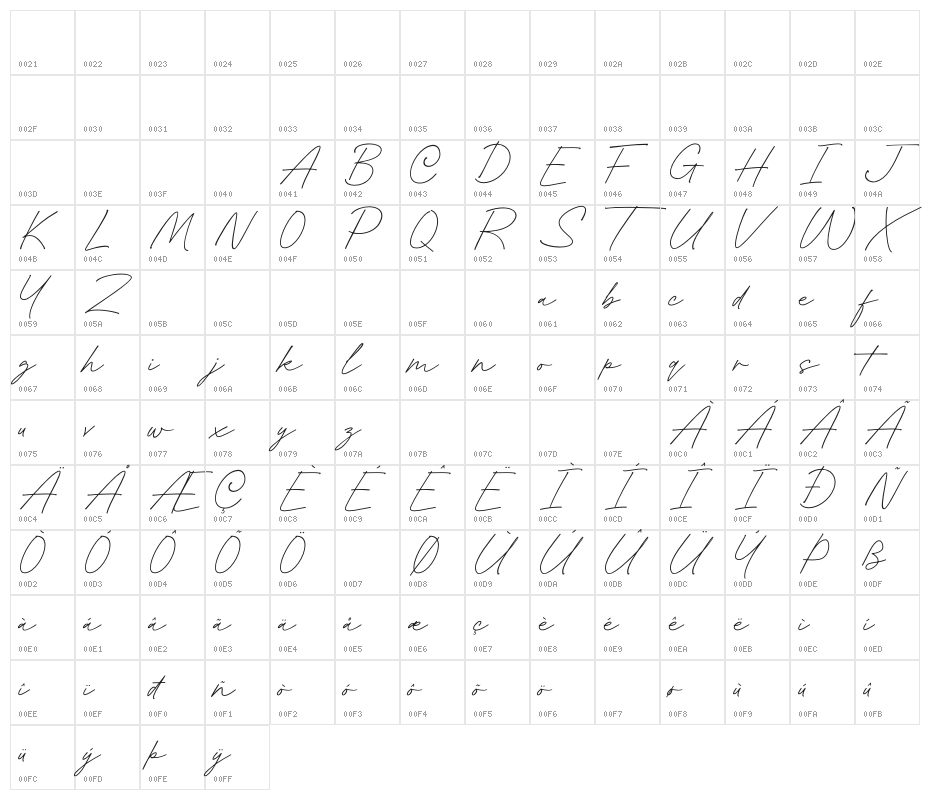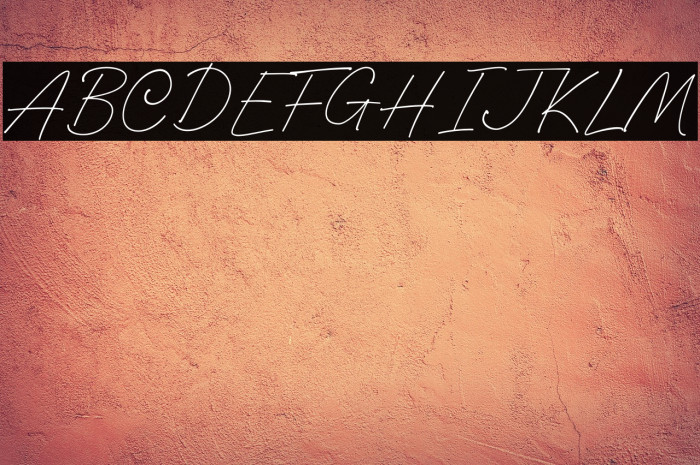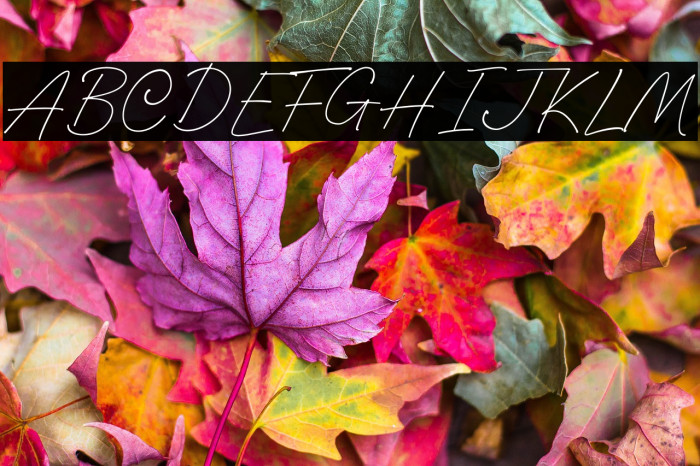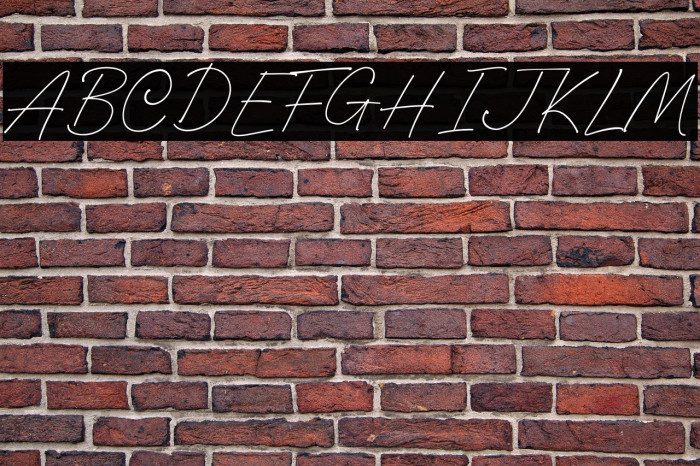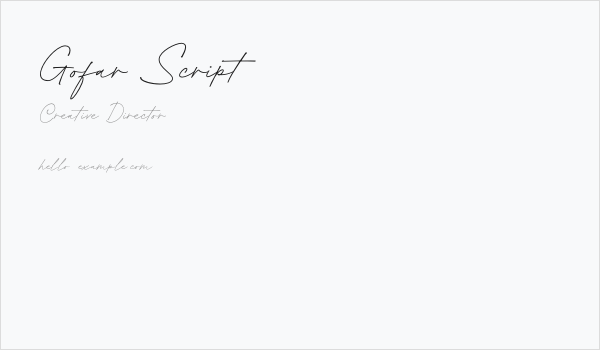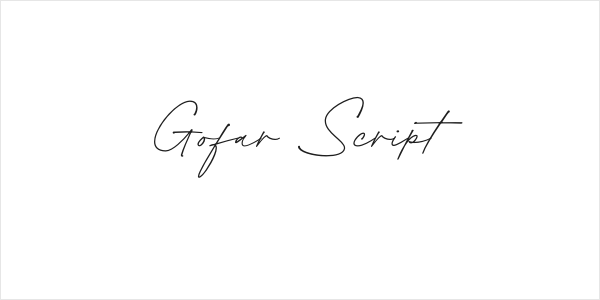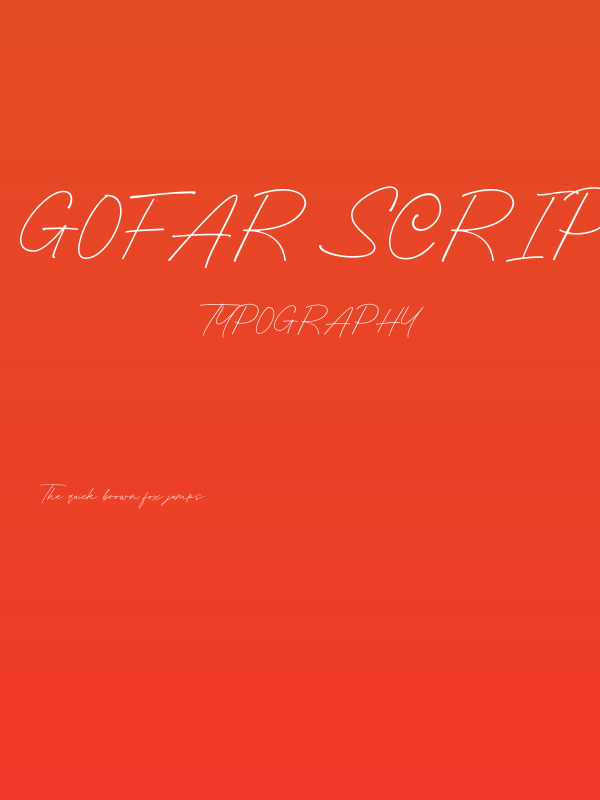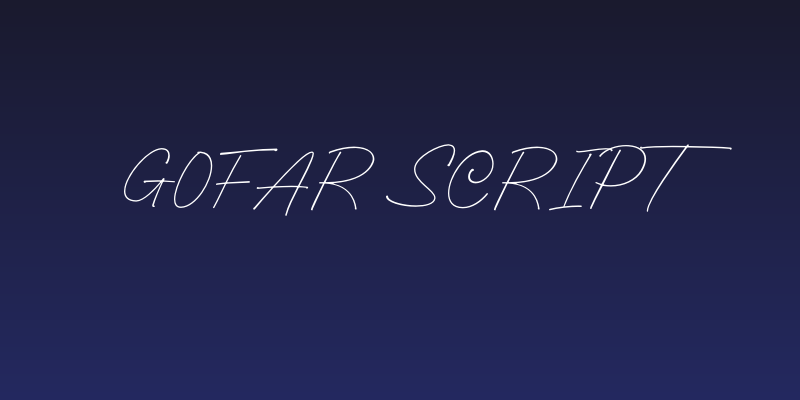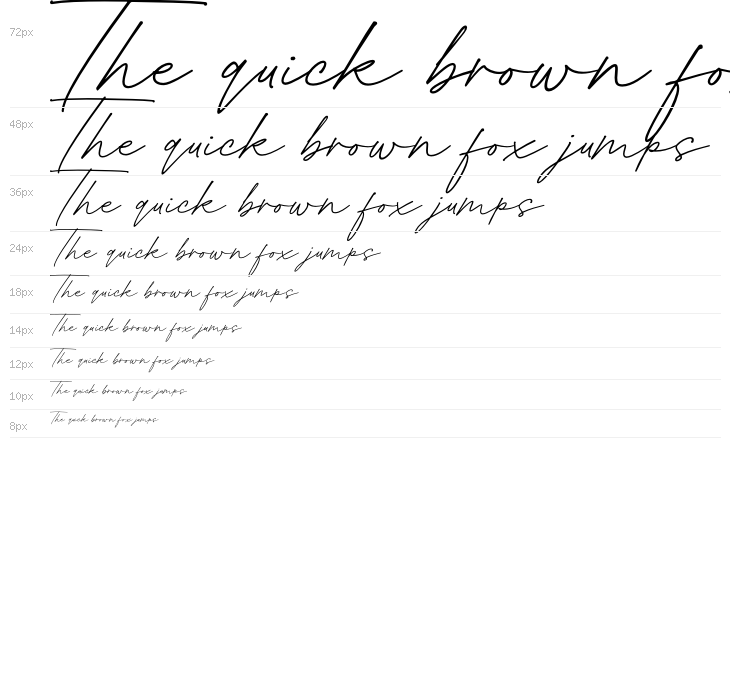
Gofar Script Font
Gofar Script Description
This font features a fluid and elegant script style, characterized by its smooth, flowing lines and cursive letterforms. The uppercase letters are slightly more structured, maintaining a consistent slant that complements the more freeform lowercase letters. The lowercase characters exhibit a natural, handwritten quality with varying stroke widths that add a dynamic and personal touch. The font's overall appearance is both sophisticated and approachable, making it suitable for a variety of design applications. Its legibility is enhanced by the clear distinction between each letter, despite the connected script style.
| Overall Style | Elegant, Handwritten |
| Use Case | Logos, Invitations, Personal Branding |
| Proposed Projects | Ideal for wedding invitations, greeting cards, personal branding, and elegant packaging designs. |